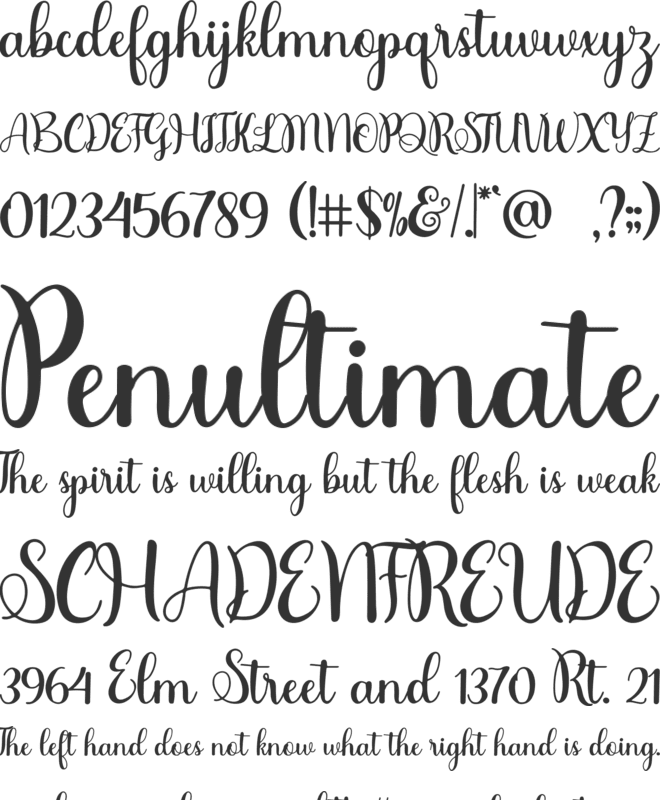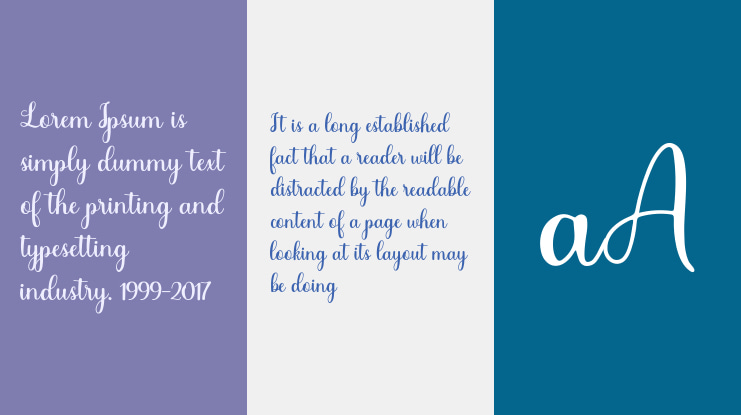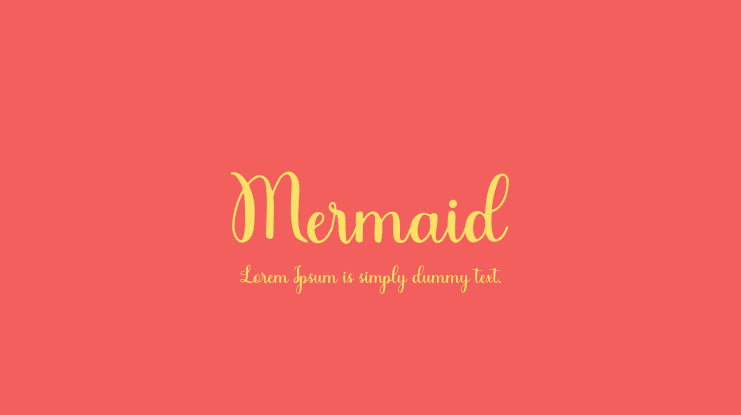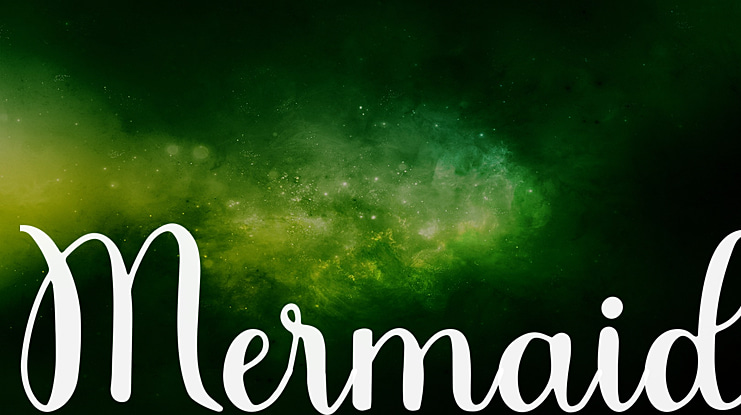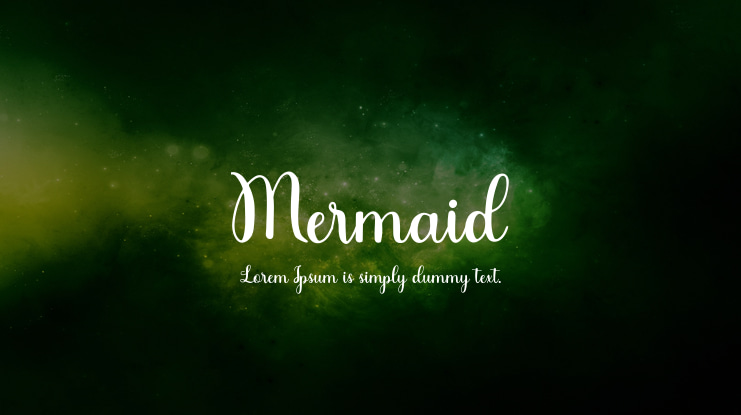
Mermaid Font
Mermaid is a beautiful handwritten font. Simple and easy to use, this font will be very beautiful if you mix it with your various craft designs.